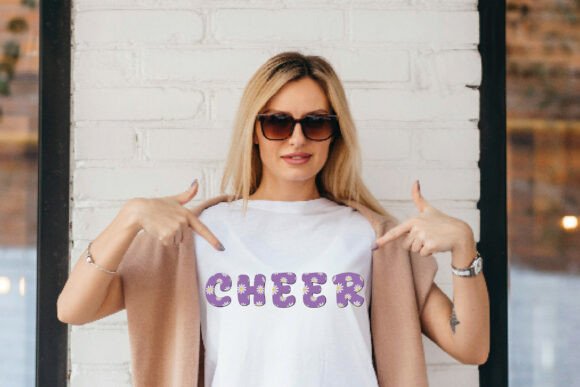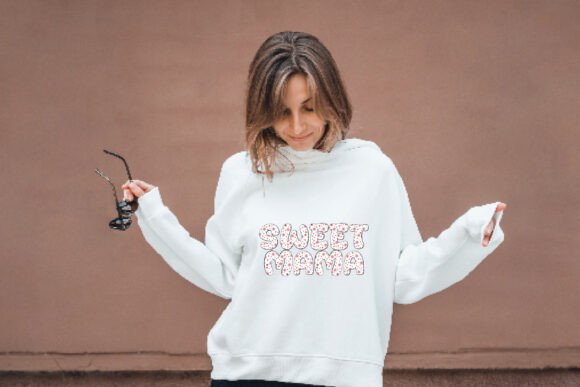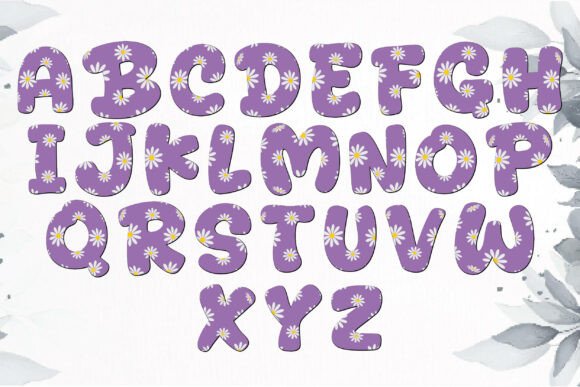
Hop into Spring with the Easter Alphabet Pack Font
Ah, Easter design projects – who doesn’t love a good excuse to get creative with colorful eggs, bunnies, and springtime vibes? I still remember the time I was working on an Easter-themed invitation for a client’s party, and I just couldn’t find the perfect font to match the playful, festive atmosphere. I scoured the internet, tried out a dozen different fonts, but nothing seemed quite right. That was until I stumbled upon the Easter Alphabet Pack Font. It’s been a game-changer for my spring designs ever since!
What’s Included in the Easter Alphabet Pack Font?
The Easter Alphabet Pack Font is a delightful bundle of four unique font styles, each with its own special charm. You’ll get:
- Fancy Dot Font – a cute, dotted decorative alphabet that’s perfect for adding a touch of whimsy to your designs ✨
- Fancy Flower Font – a beautiful, floral-inspired spring lettering font that’s ideal for creating elegant, garden-inspired designs 🌼
- Fancy Easter Font – a playful, festive alphabet that’s sure to bring the Easter spirit to your projects 🎉
- Simple Easter Font – a clean and classic spring lettering font that’s great for designs that need a more subtle touch 🌸
Honest Review: What I Love (and a Few Quirks)
I’ve had a blast working with the Easter Alphabet Pack Font, and here’s what I love about it:
- ✅ The variety of font styles gives me plenty of options for different projects
- ✅ The Easter theme is perfect for seasonal designs, and the fonts are versatile enough to use for other spring-themed projects
As for quirks, I did notice a few things to keep in mind:
One of the best things about the Easter Alphabet Pack Font is its support for OpenType features and glyphs. This means you can access a range of stylistic alternates, ligatures, and other special characters to take your designs to the next level.
The Story Behind the Easter Alphabet Pack Font
The Easter Alphabet Pack Font was created with the intention of providing designers with a fun and versatile font solution for their spring and Easter-themed projects. The designer wanted to create a font that was both playful and elegant, with a range of styles to suit different design needs.